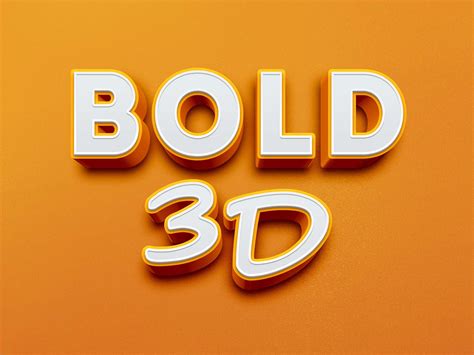
3D Letter Fonts: Stylish & Unique Text Effects
Readers, have you ever wanted to add a touch of depth and dimension to your text? Perhaps you're creating a logo, designing a website, or crafting eye-catching social media graphics. If so, 3D letter fonts might be the perfect solution! 3D letter fonts offer a unique way to add visual interest and make your text pop. I've been exploring the world of 3D letter fonts for some time, and I'm excited to share my insights with you.
3D letter fonts are a powerful tool for designers and creatives. They can transform ordinary text into captivating masterpieces, giving your projects a modern and futuristic feel. Let's delve into the exciting world of 3D letter fonts and discover the possibilities they offer.
Types of 3D Letter Fonts: A Visual Feast
3D letter fonts come in a wide variety of styles and designs. From bold and futuristic to sleek and minimalist, there's a 3D font for every taste and occasion. Here's a glimpse into some of the popular categories:
Bold and Extrusion:
These 3D letter fonts are characterized by their dramatic depth and exaggerated outlines. They often feature bold strokes and pronounced shadows, creating a sense of weight and solidity. Commonly used for creating eye-catching headlines, logos, and posters.
Sleek and Minimalist:
For a more subtle and sophisticated look, these 3D letter fonts offer a clean and modern aesthetic. With subtle depth and refined shadows, they add a touch of dimension without overwhelming the design. These fonts are well-suited for branding, web design, and editorial layouts.
Organic and Hand-Drawn:
This captivating category features 3D letter fonts that emulate the charm of handmade lettering. These fonts often have a slightly irregular and uneven appearance, giving them a unique and whimsical feel. These fonts are ideal for adding a personal touch to projects, particularly in creative branding, invitations, and posters.
Creating Stunning Text Effects with 3D Letter Fonts
3D letter fonts are not just for creating eye-catching headlines and branding elements. They offer a world of possibilities for enhancing a wide range of designs. Here are some ways you can use 3D letter fonts to create stunning text effects:
Embossed and Beveled Text:
Embossed and beveled effects add a classic, tactile feel to your text. They create a sense of depth and texture, making your text appear as if it's been raised or carved into a surface. These effects are particularly effective for creating logos, titles, and special announcements.
Shadow and Glow Effects:
Shadows and glows can add a touch of magic and drama to your text. They can create a sense of depth, highlight specific letters, and draw attention to your message. These effects are often used in digital graphics, website design, and social media posts.
Realistic Material Simulations:
Advanced 3D letter fonts allow you to simulate realistic materials, such as wood, metal, or glass. These effects add another layer of detail and realism to your text, making it even more engaging and visually appealing. These simulations are effective when creating unique product packaging, branding materials, or digital mockups.
Creating 3D Text with 3D Modeling Software:
For ultimate customization and creative control, you can use 3D modeling software to craft your own unique 3D letters. These applications offer a vast array of tools and options to shape, texture, and animate your text, giving you complete artistic freedom.
Choosing the Right 3D Letter Fonts for Your Project
With so many options available, choosing the right 3D letter font for your project can feel overwhelming. Here are some key considerations:
Project Style and Tone:
The style and tone of your project will influence your font choice. For a bold and modern design, you might opt for a futuristic extrusion font. For a vintage or classic look, consider a hand-drawn or embossed font.
Target Audience:
Think about your target audience. Are they tech-savvy and appreciate futuristic designs? Or are they more traditional and value classic aesthetics? Your font selection should resonate with your audience's tastes and expectations.
Readability:
Readability is paramount. Ensure your chosen 3D letter font is easy to read. Avoid overly complex or decorative fonts that might make your text difficult to decipher.
Font Pairing:
If you're using multiple fonts in your project, consider how they will work together. Pair contrasting fonts for visual impact, or stick with similar styles for a cohesive look. Experiment with different combinations to find the perfect font pair for your design.
Where to Find 3D Letter Fonts:
The internet is a treasure trove of 3D letter fonts, offering a wide range of styles and designs. Here are some popular resources:
Free Font Websites:
Many websites offer free 3D letter fonts, allowing you to experiment and find fonts that meet your needs. These websites often have a vast library of fonts categorized by style and design. Some popular free font websites include Google Fonts, Font Squirrel, and DaFont.
Conclusion:
3D letter fonts are a creative tool for designers. They can elevate your designs and help you create unique and engaging text effects. Whether you are a professional designer or a hobbyist, exploring the world of 3D letter fonts can open up new possibilities and inspire you to create stunning visuals. And who knows, maybe you'll even discover a new favorite 3D letter font along the way! If you're eager to dive deeper into the world of 3D letter fonts, check out our other articles on related topics. You'll find a wealth of information on how to choose the right fonts, create amazing text effects, and master the art of typography.